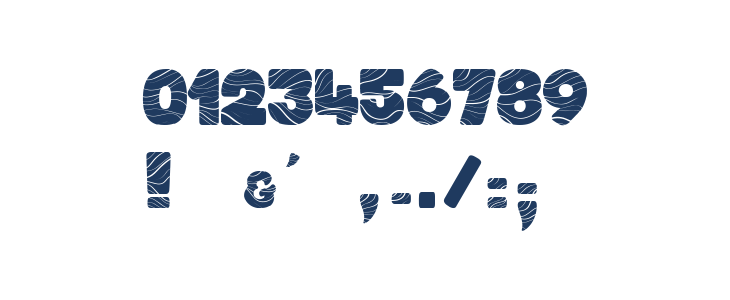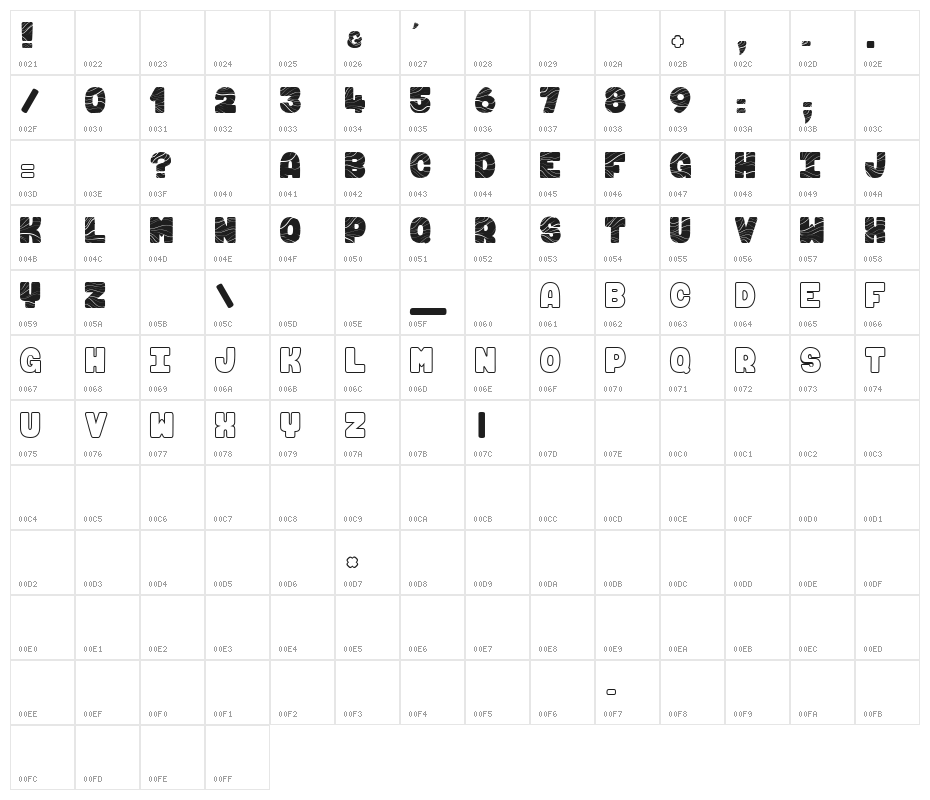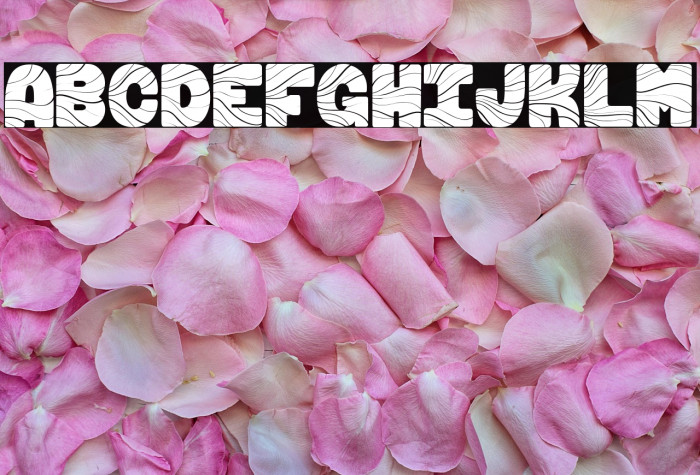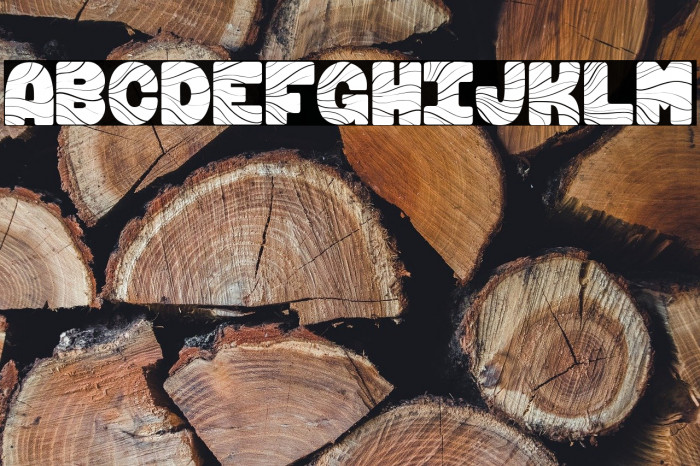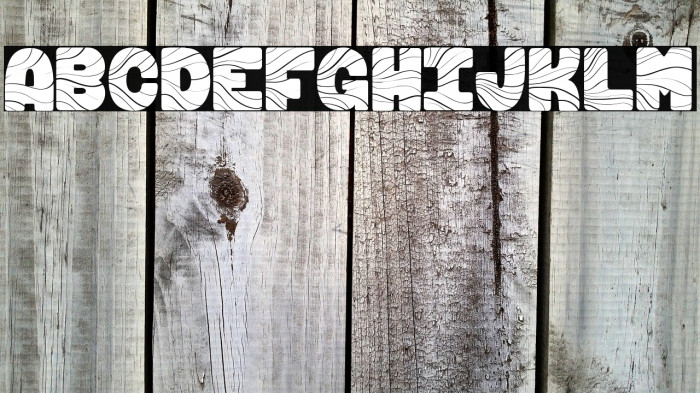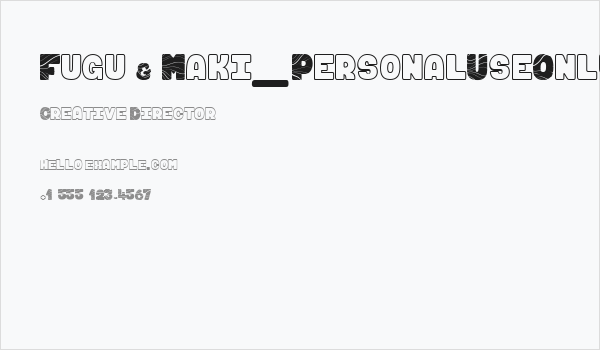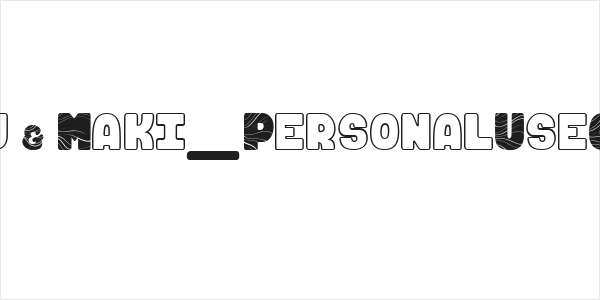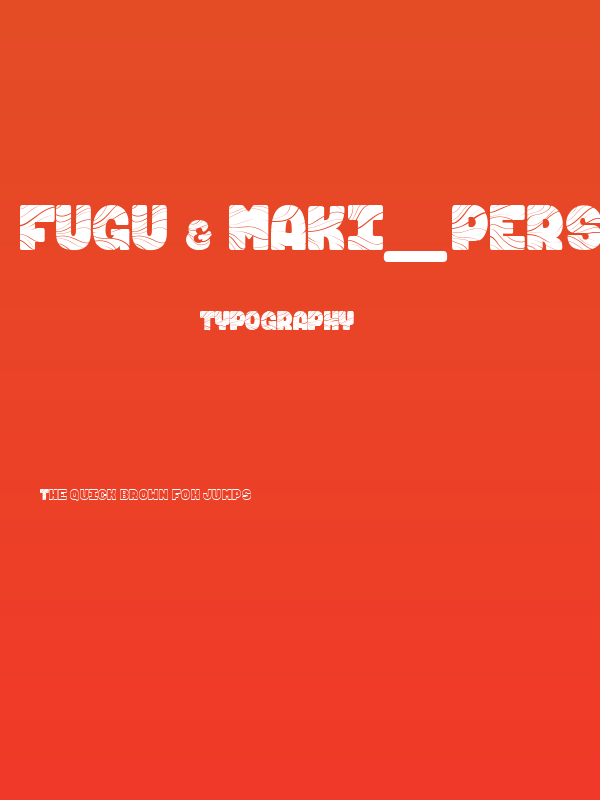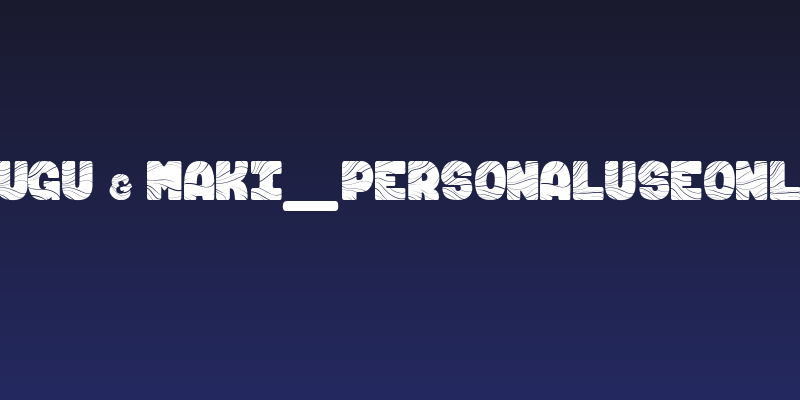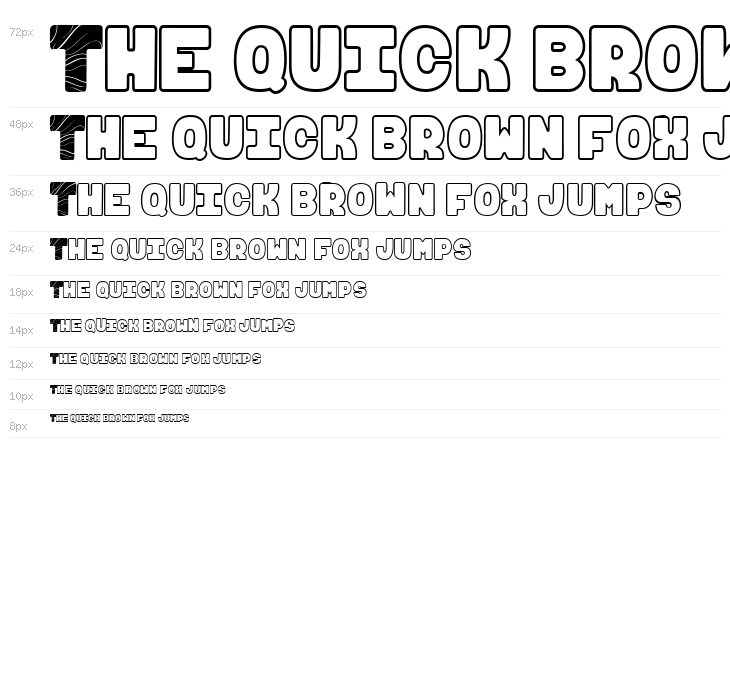
Fugu & Maki_PersonalUseOnly Font
Fugu & Maki_PersonalUseOnly Description
This font features a bold and playful design with a unique pattern that resembles waves or stripes running through each character. The uppercase letters are solid and filled with this pattern, creating a striking visual effect. The lowercase letters maintain the same style, ensuring consistency throughout. The numbers and special characters also follow this design, making them stand out. The font's overall appearance is modern and decorative, making it suitable for eye-catching designs. Its boldness and distinct style make it ideal for projects that require a strong visual impact.